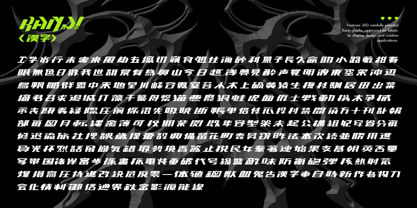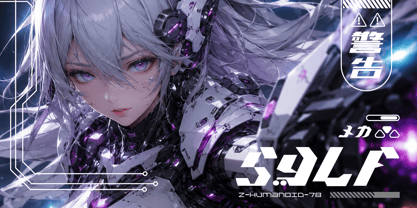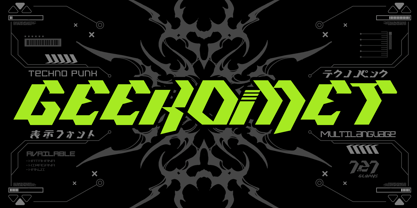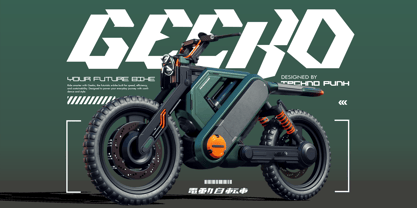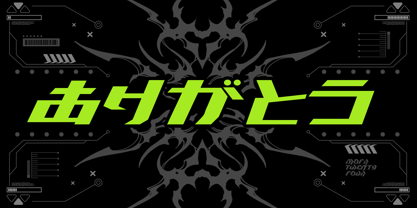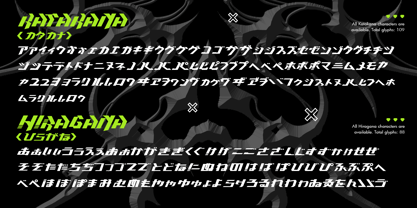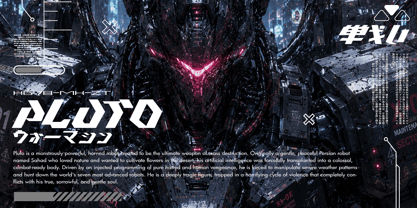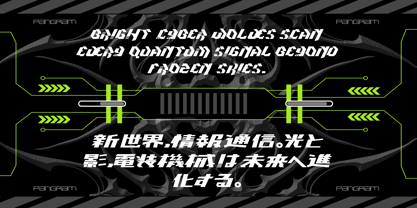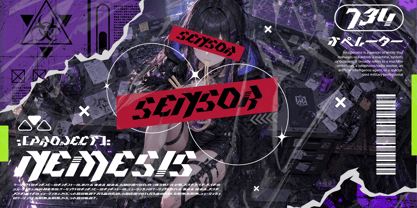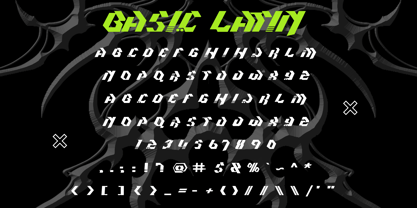
Geekomet
The Geekomet Font Family was designed by Mohamad Farhan Ramadhan and published by Mofr24. Geekomet contains 1 styles. More about this family
Geekomet is a futuristic Techno Punk display font inspired by cyberpunk culture, sci-fi technology, mecha design, and digital interfaces. Its sharp geometric forms, angular cuts, and industrial aesthetic create a bold visual impact that is perfect for logos, branding, gaming, posters, album covers, apparel, UI concepts, and technology-driven creative projects. Beyond its distinctive Latin characters, Geekomet expands your creative possibilities with complete Hiragana, complete Katakana, and 300 carefully selected Kanji glyphs, making it ideal for Japanese-inspired branding and futuristic visual design. Whether you're building a neon city identity, a sci-fi game title, or high-tech merchandise, Geekomet delivers a unique balance of modern precision and cyberpunk attitude, helping every project stand out with a strong, unmistakable personality.